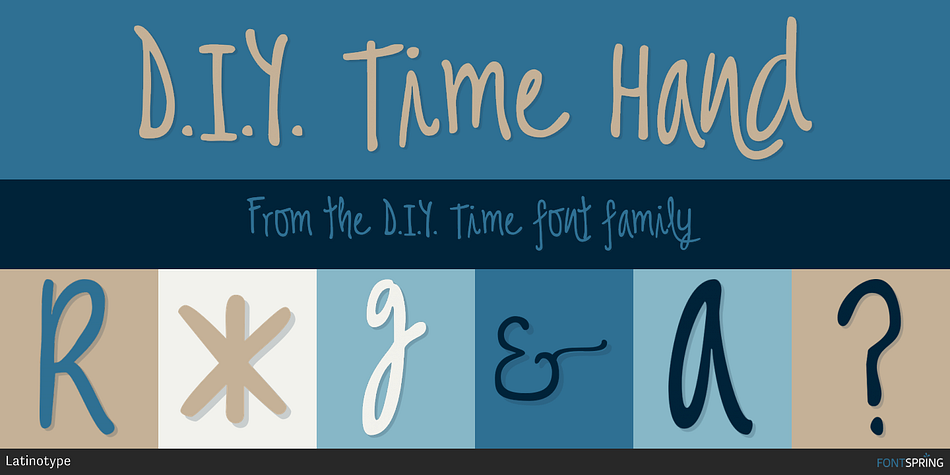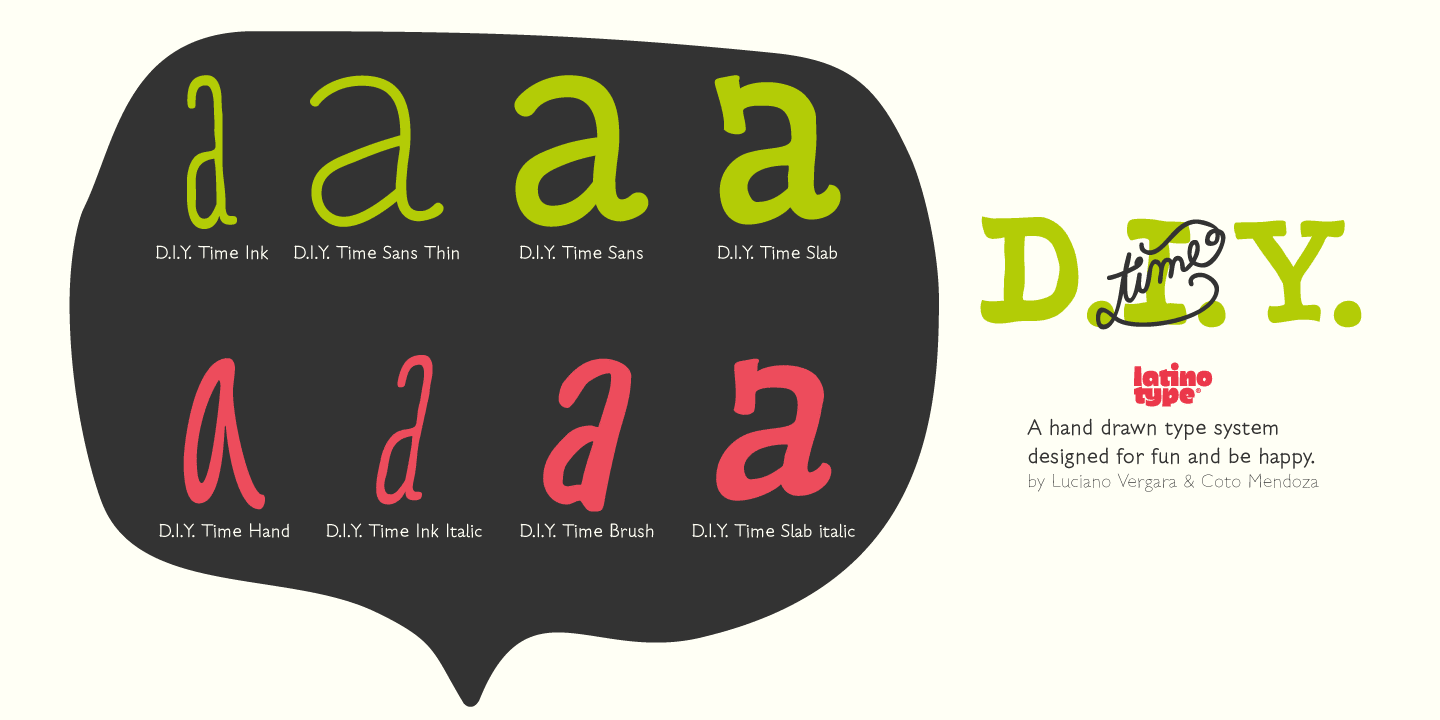
D.I.Y. Time Hand
D.I.Y. Time is a multiple classification font family. This typeface has eleven styles and was published by Latinotype.
D.I.Y.
D.I.Y. Time is a hand drawn type system designed by Luciano and Coto inspired by the DIY philosophy which has been transformed into a whole global counterculture movement, identifying the new generations that reprice the handwork, paying attention to quality, processes and materials used in the manufacture of goods and objects, food, clothing, furniture etc. This beautiful philosophy inspires us every day. Is present in our homes, in our lifestyle and this time we have given him way through a typeface family that mixes different styles but integrates them through language handmade. The result is a typeface based on hand lettering drawing with different brushes and pens on paper. With versions ranging from organic proposals as DIY time hand to other based on the classic proportions of Gill as DIY time sans. To accompany a set of compound words designed on the needs of small farmers and a set of ornaments illustrated, everything you need to begin to make your own.